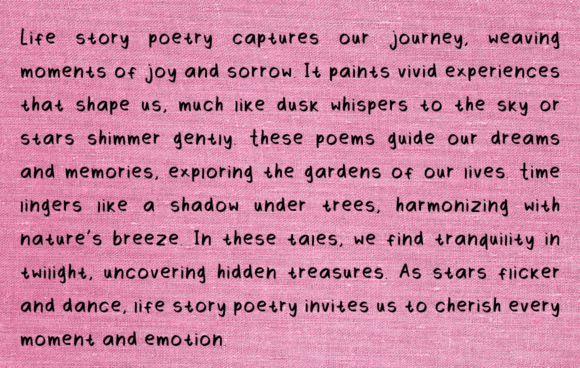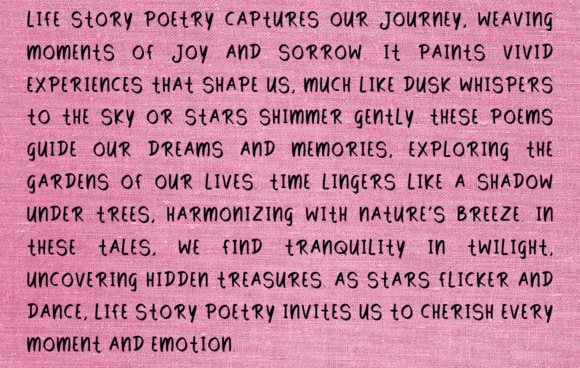
The Sweet Touch of Handwritten Love
As I sat down to write a letter to my newborn niece, I found myself longing for a font that captured the essence of handwritten love. Something that would transport her to a world of tender moments, cherished memories, and heartfelt connections. And then, I discovered the Baby Notes Font – a beautiful, playful script that embodies the spirit of handwritten love.
Baby Notes Font is more than just a font; it’s a way to add a personal touch to your designs. Its soft, rounded aesthetic makes it perfect for projects centered around family, romance, and childhood memories. Whether you’re designing a nursery, a wedding invitation, or a birthday card, Baby Notes Font adds a warmth and humanity that’s hard to find in digital fonts.
Baby Notes Font Key Features
- Font Family: Baby Notes is a script font designed to resemble handwritten notes.
- Character Count: The font contains 280 characters, including uppercase and lowercase letters, numbers, and punctuation marks.
- Unique Characteristics: The font features a playful, handwritten feel with subtle variations in letterforms, making it perfect for adding a personal touch to designs.
Baby Notes Font Review
I recently had the chance to work with the Baby Notes Font, and here’s my honest take on it.
- Soft, whimsical feel: The font has a delightful, hand-drawn quality that makes it perfect for baby-related projects, such as nursery decor, kids’ books, or even invitations.
- Expressive characters: The font’s characters are full of personality, which adds to its charm and makes it a great choice for projects where you want to convey a sense of playfulness.
- Good legibility: Despite its cursive nature, the font is still easy to read, making it suitable for body text or headlines.
- Limited font weights: The font only comes in a few weights, which may limit its versatility in certain design projects.
- Not ideal for formal projects: While the font is perfect for baby-related projects, it may not be the best choice for more formal or professional designs.
- Some characters may be difficult to use: Certain characters, such as the ampersand, may be tricky to use in certain contexts, which could lead to design issues.
Overall, I think the Baby Notes Font is a lovely addition to any designer’s toolkit. While it may have some limitations, its unique charm and expressive characters make it a great choice for projects that require a playful, whimsical touch.
Tips for Getting the Most Out of Baby Notes Font
To get the most out of Baby Notes Font, consider the following tips:
- Use it for personal and family-related projects, such as baby announcements, birthday invitations, and photo albums.
- Experiment with different font sizes and colors to create a unique and eye-catching design.
- Combine Baby Notes Font with other creative elements, such as illustrations and graphics, to add visual interest.